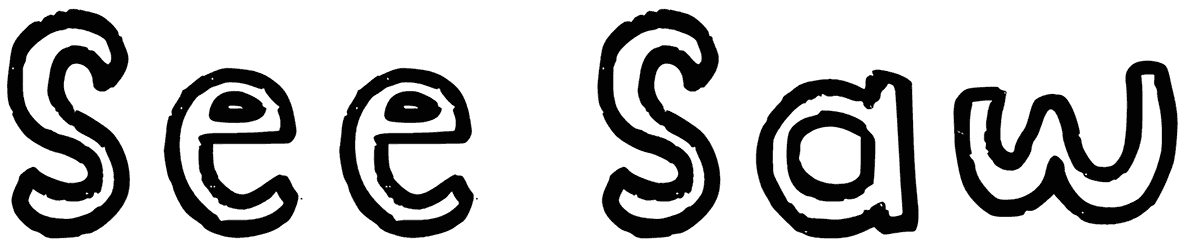
See Saw Font
Sew Saw is an outline font that leaves your hand free for any design and doesn’t turn on any red lights in your path. This cartoon font is easily compatible with all projects, especially designs with fun and happy themes…
Sew Saw is an outline font that leaves your hand free for any design and doesn’t turn on any red lights in your path. This cartoon font is easily compatible with all projects, especially designs with fun and happy themes.
It conveys a gratification and enjoyable feeling; so using this font, you can give a childish feeling to your logos, book covers, and packaging, and inspire the viewer with the wonderful excitement of playing in childhood.